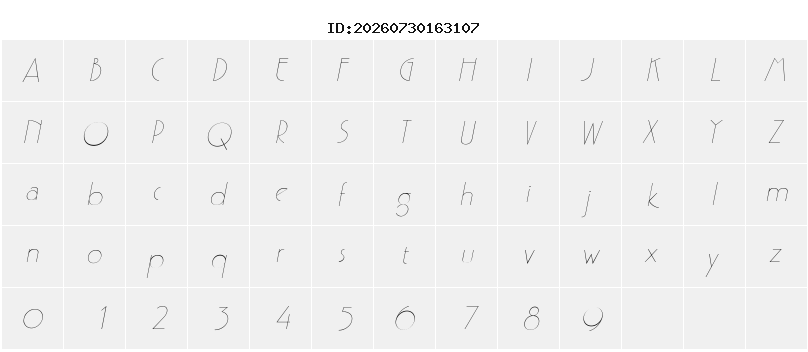
• Font Name: LydiaBecker
• Full Font Name: LydiaBecker Italic
• PostScript Name: LydiaBecker-Italic
About LydiaBecker.ttf
LydiaBecker.ttf is a modern, elegant sans-serif font designed for ultimate readability and visual harmony. Perfect for branding, headlines, web design, and print materials.